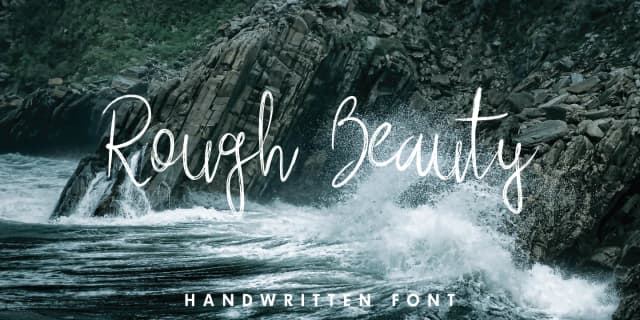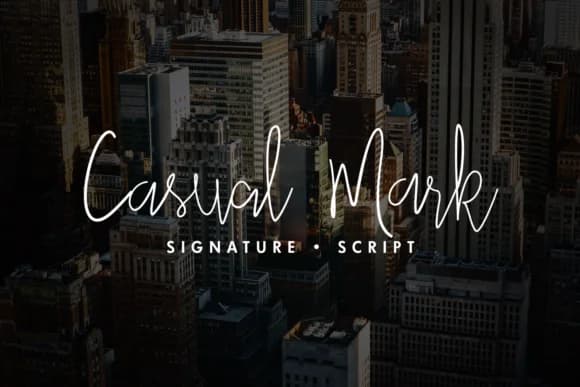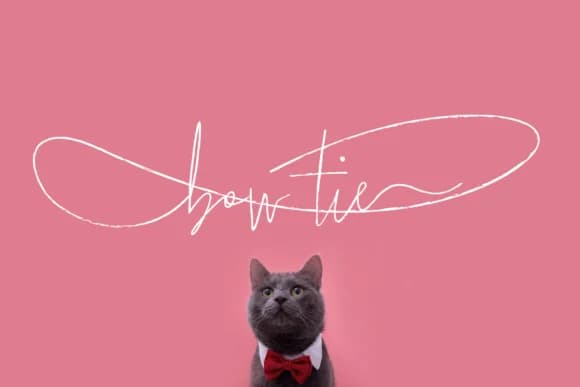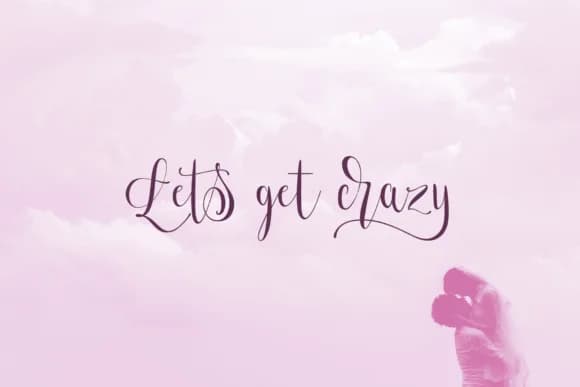
The letterforms in Stylish Marker Font carry the raw, slightly uneven character of a marker pressed to paper, with edges that blur just enough to feel genuinely handmade. Designer Pedro Alexandre Teixeira crafted this typeface by capturing that worn quality, creating something with real personality rather than artificial polish trying to mimic imperfection.
This font works exceptionally well for hand-lettered branding on product packaging, custom event invitations, or casual signage projects where slight irregularity reads as intentional rather than sloppy. Wedding invitation suites benefit tremendously from its loose, expressive stroke weight, while boutique labels and small-batch product packaging gain instant credibility from the honest irregularity of each letter. DIY craft signs, chalkboard menus, illustrated posters, and social media graphics designed to feel personal all translate beautifully with this typeface.
Stylish Marker suits designers and makers building identity systems that prioritize warmth and human touch over perfect geometric precision. It's especially valuable for small brands or creative entrepreneurs who want their work to feel personally created rather than corporate or mass-produced. Find Stylish Marker Font on Creative Fabrica, where you can download and license it for any project that demands authenticity.
- Elegant, Flowing, Stylish Marker
Stylish Marker Font is a script font that shines as a display or heading face. Pair it with a clean sans-serif or serif font for body text β the contrast creates a clear hierarchy while the two styles stay balanced and easy to read.
Stylish Marker Font